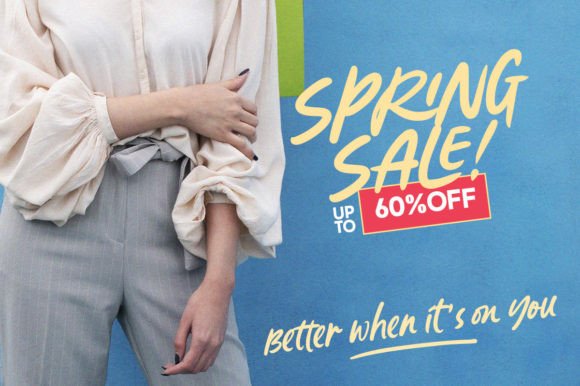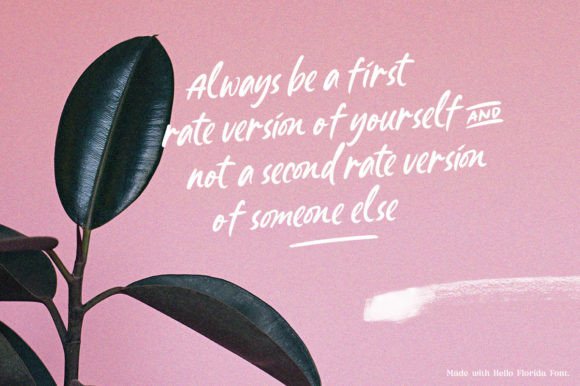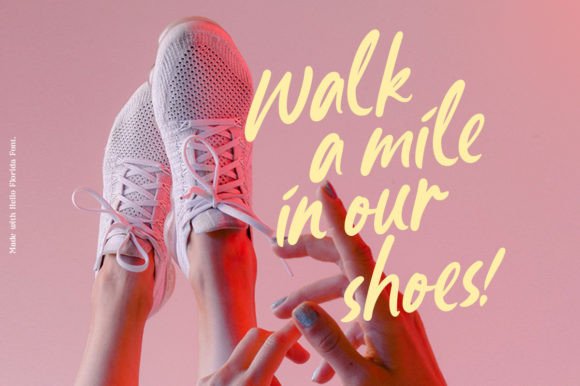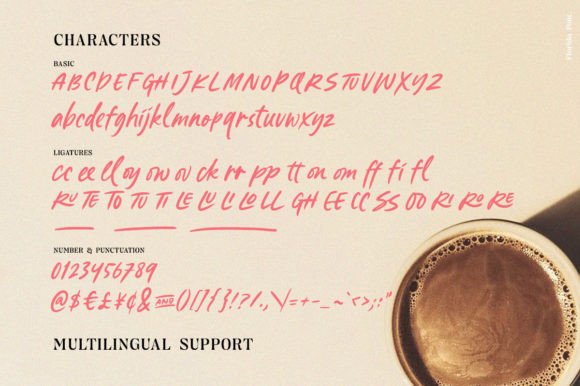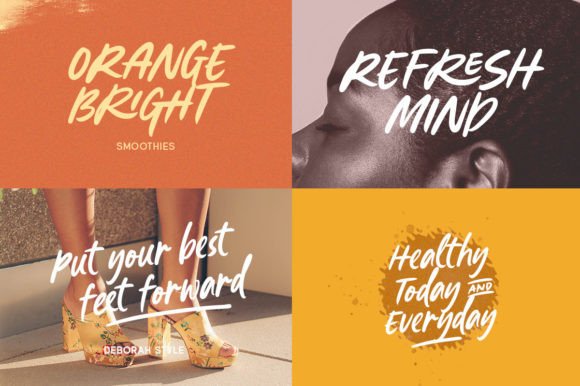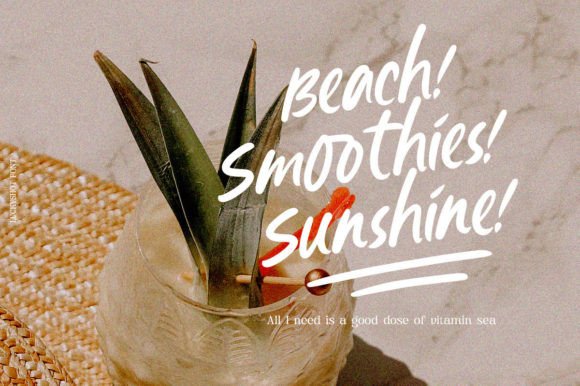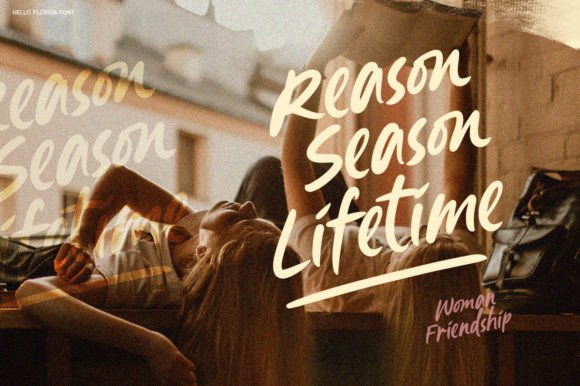
Hello Florida Font
Hello Florida Font: Modern Handwriting for Casual Designs
“Hello Florida” is a captivating handwritten font that combines modernity with a casual vibe. It’s perfect for various creative projects, from social media graphics to branding materials.
Key Features of Hello Florida Font
• Modern Style: Hello Florida brings a contemporary feel to designs.
• Casual Appearance: Adds a relaxed and approachable touch.
• PUA Encoding: Easy access to a wide array of glyphs and swashes.
Social Media and Digital Content
Hello Florida’s modern style is ideal for creating engaging social media graphics and digital content.
Branding and Packaging
Use Hello Florida to design fresh logo designs and packaging that convey a contemporary, laid-back image.
Posters and Print Materials
The font’s casual look makes it perfect for creating eye-catching posters and print materials.
Why Choose Hello Florida Font?
Hello Florida offers more than just modern letters. Here’s why it stands out:
• Enhances designs with a contemporary and relaxed feel
• Provides extensive customization options with PUA encoding
• Adapts well to various design themes and projects
By using Hello Florida, you open up new design possibilities. Its modern style works well in many contexts, from greeting cards to website headers. The font’s ability to convey a casual yet contemporary feel can inspire creative ideas and help you approach projects from a fresh perspective.
If you’re looking for a font that’s both modern and casual, Hello Florida is an excellent choice. It’s perfect for adding a contemporary touch to your work, especially for projects that need a fresh, approachable feel.
Explore how Hello Florida can transform your designs. From branding projects to personal creations, this font brings a modern and relaxed quality to your work.